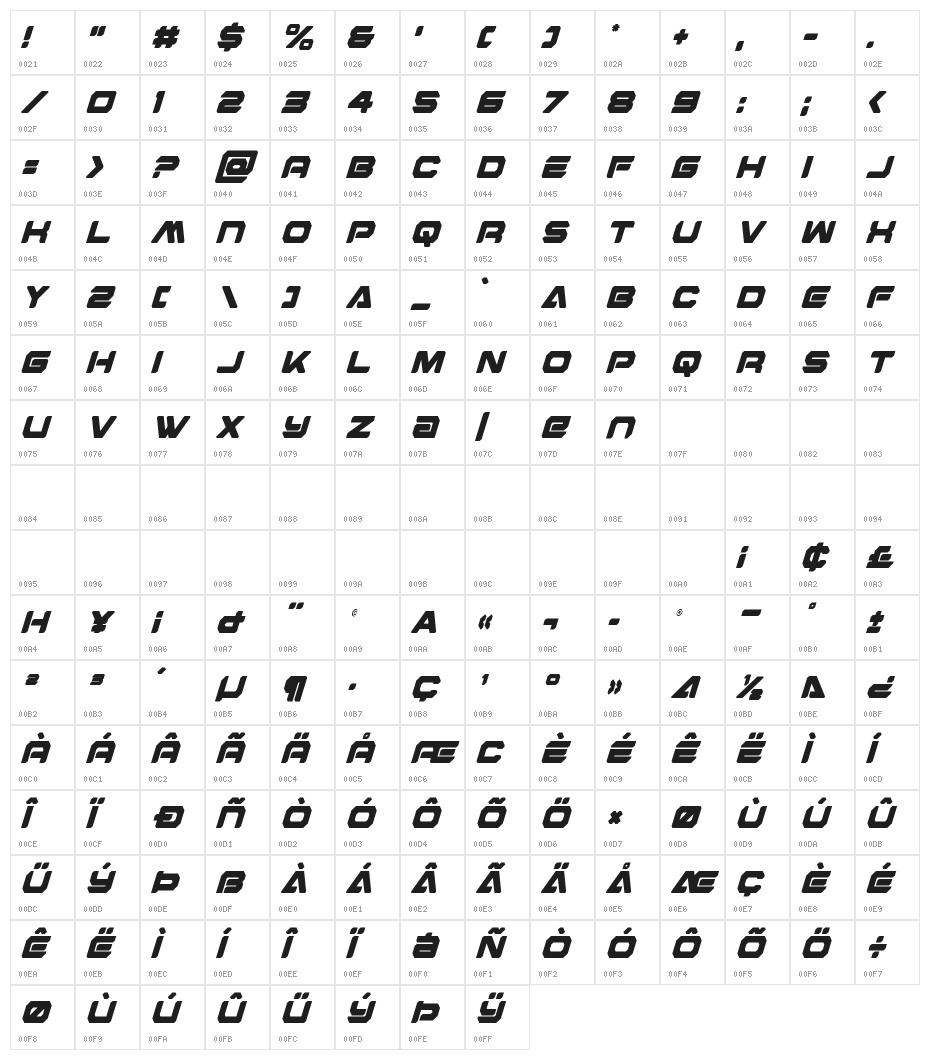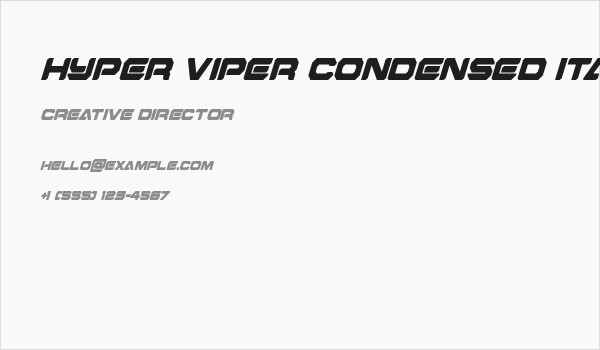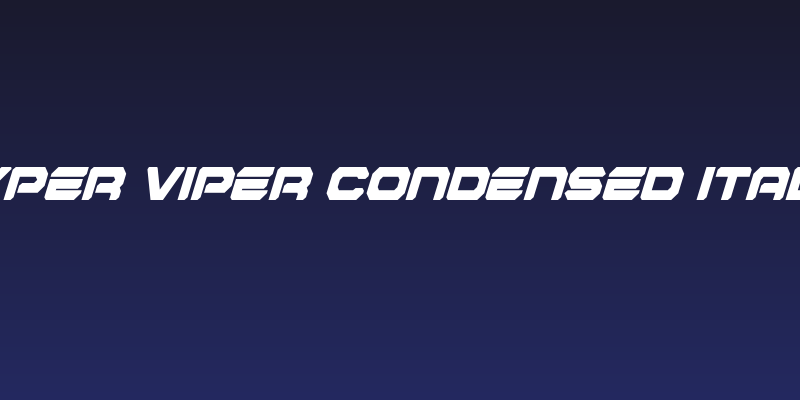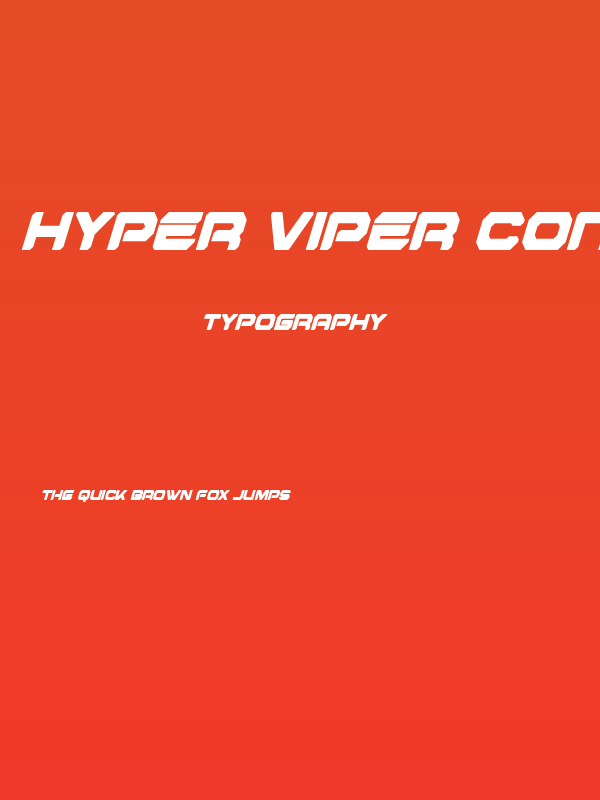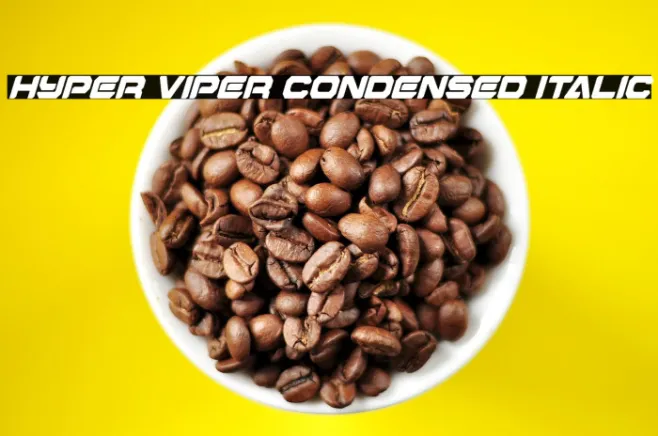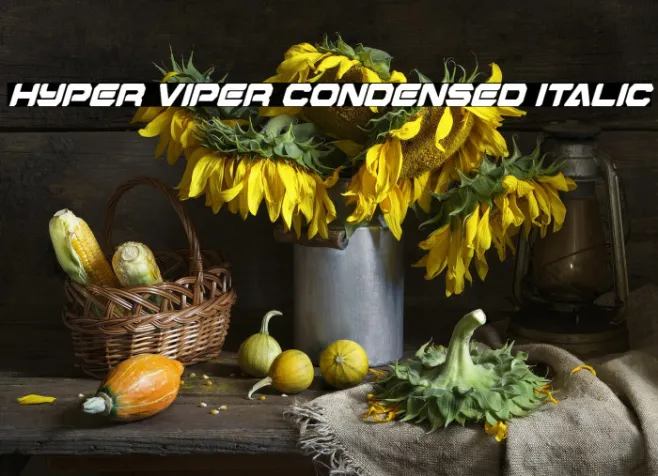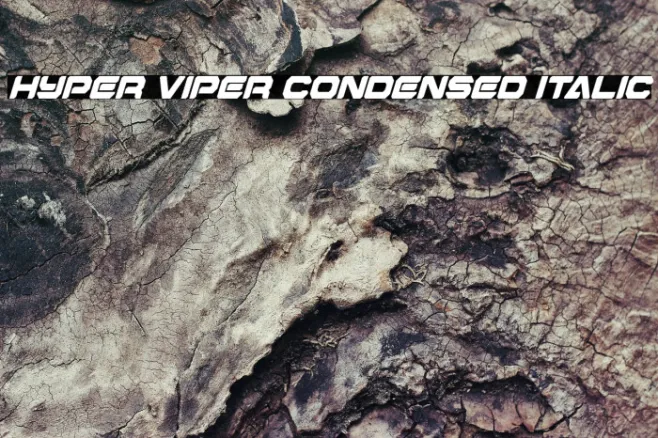
Hyper Viper Condensed Italic Font
Hyper Viper Condensed Italic Description
This font features a bold, italicized style with a futuristic and dynamic appearance. The characters are condensed, giving them a sleek and streamlined look. The sharp angles and geometric shapes contribute to its modern aesthetic, making it ideal for projects that require a sense of speed and innovation. The uppercase and lowercase letters maintain a consistent style, with a slight slant that enhances the italic effect. Numbers and special characters are designed to match the overall theme, ensuring uniformity across all text elements.
| Proposed Projects | Ideal for use in technology branding, sports team logos, video game titles, and sci-fi movie posters. |